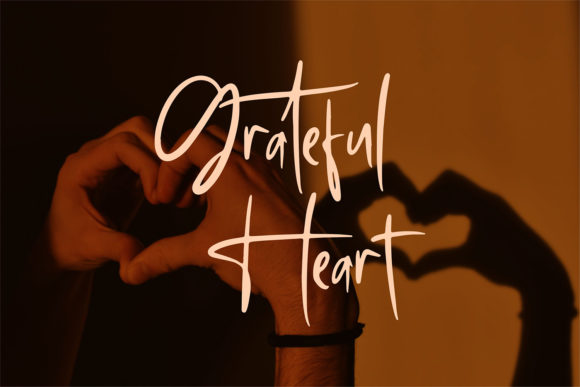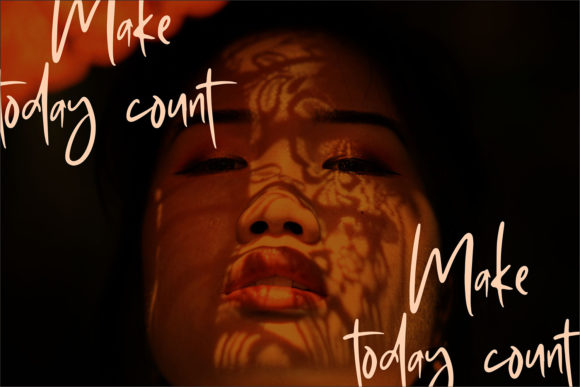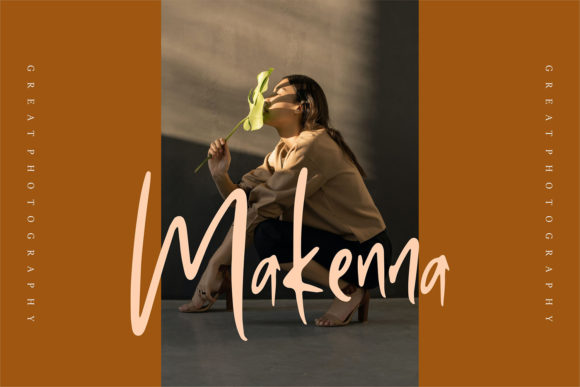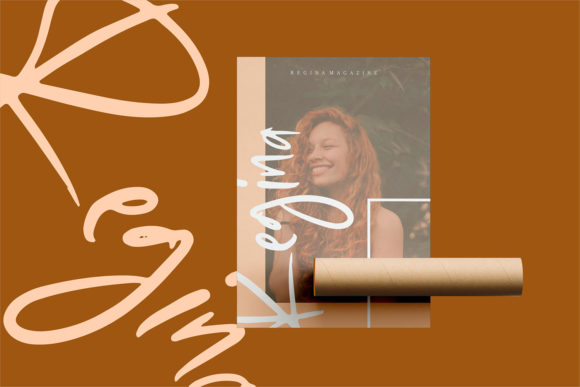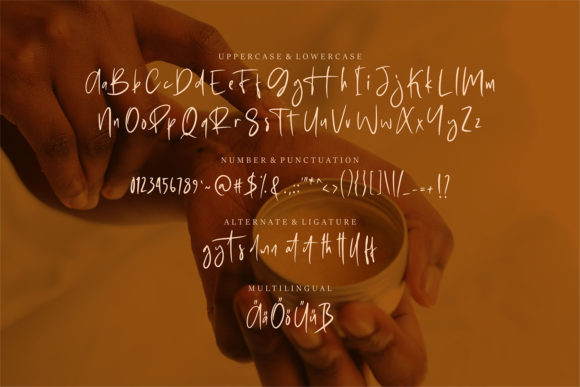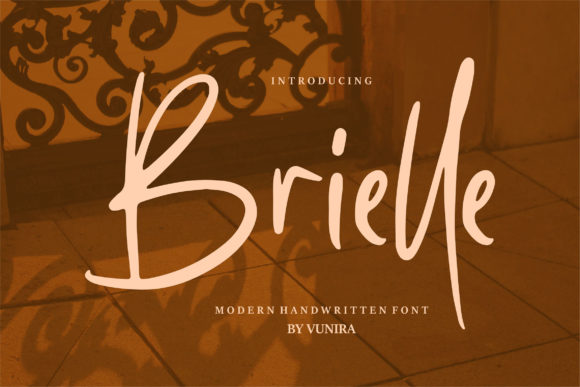
Brielle Font: The Perfect Brushed Script for Personalized Designs
Are you looking for a font that exudes warmth, friendliness, and a touch of elegance? Look no further than the Brielle font. This beautiful brushed script font is perfect for designers and crafters who want to add a personal touch to their designs. In this article, we’ll dive into the features and benefits of the Brielle font, and explore how it can elevate your designs.
What is Brielle Font?
Brielle is a relaxed and friendly brushed script font that looks stunning on a variety of designs requiring a personalized style. Its soft, cursive lines and gentle strokes evoke a sense of warmth and approachability, making it perfect for designs that need a human touch. Whether you’re creating wedding invitations, thank you cards, greeting cards, logos, or any other design that requires a personal touch, Brielle is an excellent choice.
Key Features of Brielle Font
- Brushed Script Style: Brielle’s brushed script style gives it a unique, hand-crafted feel that’s perfect for designs that require a personal touch.
- Relaxed and Friendly: The font’s relaxed and friendly vibe makes it perfect for designs that need to convey a sense of approachability and warmth.
- Highly Versatile: Brielle looks stunning on a variety of designs, from wedding invitations and greeting cards to logos and branding materials.
- Elegant and Sophisticated: Despite its relaxed and friendly vibe, Brielle still exudes a sense of elegance and sophistication that’s perfect for high-end designs.
Use Cases for Brielle Font
Brielle is a highly versatile font that can be used in a wide range of designs. Here are some use cases where Brielle shines:
- Wedding Invitations: Brielle’s elegant and sophisticated vibe makes it perfect for wedding invitations, save-the-date cards, and other wedding-related designs.
- Greeting Cards: The font’s friendly and approachable style makes it perfect for greeting cards, thank you cards, and other personal correspondence.
- Logos and Branding: Brielle’s unique and elegant style makes it perfect for logos, branding materials, and other business designs that require a personal touch.
- Stationery and Paper Crafts: Brielle’s beautiful script style makes it perfect for stationery, paper crafts, and other DIY projects that require a personal touch.
Tips for Using Brielle Font
Here are some tips for getting the most out of Brielle font:
- Pair with Other Fonts: Brielle pairs well with other fonts, especially sans-serif fonts. Try pairing it with a clean sans-serif font for a beautiful contrast.
- Use in Headlines and Titles: Brielle’s elegant and sophisticated style makes it perfect for headlines and titles. Use it to add a touch of elegance to your designs.
- Experiment with Colors: Brielle looks stunning in a variety of colors. Experiment with different colors to find the perfect one for your design.
In conclusion, Brielle font is a beautiful brushed script font that’s perfect for designers and crafters who want to add a personal touch to their designs. Its relaxed and friendly vibe, elegant and sophisticated style, and high versatility make it perfect for a wide range of designs. Whether you’re creating wedding invitations, greeting cards, logos, or any other design that requires a personal touch, Brielle is an excellent choice.